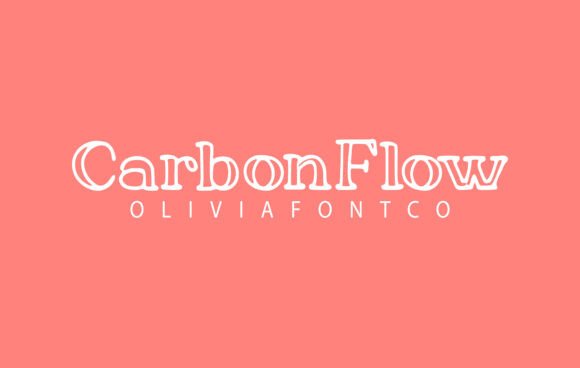
Introducing Carbonflow Font: The Ultimate Handwritten Font for Creative Expression
In the world of typography, fonts play a crucial role in conveying messages, evoking emotions, and creating a lasting impression. Among the numerous fonts available, Carbonflow Font stands out as a unique and authentic handwritten font that adds a romantic touch to any design. In this article, we’ll explore the features, benefits, and uses of Carbonflow Font, and why it’s becoming a favorite among designers and creative enthusiasts.
What is Carbonflow Font?
Carbonflow Font is a carefully crafted handwritten font that exudes a sense of elegance and sophistication. Designed to be versatile and legible, this font is perfect for a wide range of applications, from magazine headlines and social media graphics to branding, wedding invitations, and more. Its authentic handwritten style gives it a personal touch, making it ideal for designs that require a human and approachable feel.
Key Features of Carbonflow Font
- Authentic Handwritten Style: Carbonflow Font boasts an authentic handwritten style that adds a touch of personality to any design.
- Romantic Touch: The font’s elegant and flowing lines give it a romantic feel, perfect for designs that require a sense of sophistication and glamour.
- Legibility: Carbonflow Font is designed to be highly legible, making it suitable for both title and body text.
- Versatility: This font can be used for a wide range of applications, from print to digital media.
Benefits of Using Carbonflow Font
Carbonflow Font offers numerous benefits to designers and creative enthusiasts. Here are some of the advantages of using this font:
- Unique and Distinctive: Carbonflow Font is a one-of-a-kind font that can help you stand out from the crowd and create a lasting impression.
- Emotional Connection: The font’s romantic and handwritten style can help create an emotional connection with your audience.
- Flexibility: Carbonflow Font can be used for various design projects, from elegant wedding invitations to bold magazine headlines.
- Easy to Read: The font’s high legibility ensures that your message is conveyed clearly and effectively.
Uses of Carbonflow Font
Carbonflow Font is an incredibly versatile font that can be used for a wide range of design projects. Here are some of the most popular uses of this font:
- Magazine Headlines: Carbonflow Font is perfect for creating eye-catching magazine headlines that grab attention.
- Social Media Graphics: The font’s elegant style makes it ideal for social media graphics, such as Facebook posts, Instagram stories, and Twitter headers.
- Branding: Carbonflow Font can be used to create a unique and memorable brand identity.
- Wedding Invitations: The font’s romantic style makes it perfect for wedding invitations, save-the-date cards, and other wedding-related designs.
- Cards and Stationery: Carbonflow Font can be used to create beautiful cards, stationery, and other paper products.
Tips for Using Carbonflow Font
To get the most out of Carbonflow Font, here are some tips to keep in mind:
- Use it Sparingly: While Carbonflow Font is beautiful, it’s best to use it sparingly to avoid overwhelming your design.
- Pair it with Other Fonts: Experiment with pairing Carbonflow Font with other fonts to create a unique and visually appealing design.
- Adjust the Size and Color: Play around with different sizes and colors to find the perfect combination for your design.
- Experiment with Effects: Try adding effects, such as shadows or textures, to give your design an extra boost.
Carbonflow Font is an exceptional handwritten font that offers a unique and romantic touch to any design. Its versatility, legibility, and elegance make it perfect for a wide range of applications, from magazine headlines to wedding invitations. With its numerous benefits and uses, Carbonflow Font is sure to become a favorite among designers and creative enthusiasts. So why not give it a try and take your creative ideas to the next level?